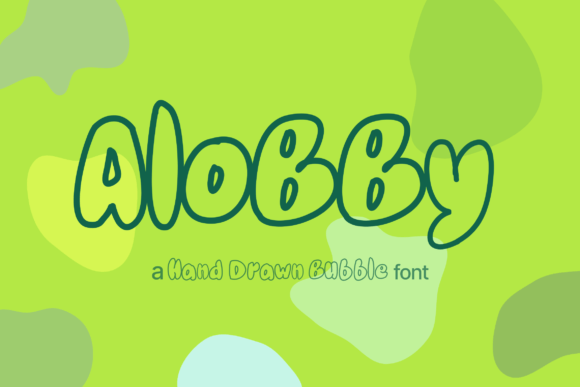
The Ultimate Guide to Alobby Font: Adding Energy and Charm to Your Creative Projects
I’ll never forget the time I was working on a project for a children’s party invitation. I had the design concept nailed, but something was missing – the perfect font. I scrolled through my font library, but nothing seemed quite right. That’s when I stumbled upon Alobby Font, a hand-drawn bubble font that instantly added a playful touch to my design. In this article, I’ll share my experience with Alobby Font, its features, and how to make the most of it in your creative projects.
An Honest Review of Alobby Font
So, what makes Alobby Font special? Here are some things I love about it:
- ✨ Unique and playful design: Alobby Font has a distinctive, hand-drawn look that’s perfect for creative projects that need a personal touch.
- ✅ Easy to read: Despite its playful nature, Alobby Font is surprisingly easy to read, even in smaller sizes.
- 💬 Great for headlines and titles: Alobby Font is ideal for grabbing attention and adding emphasis to your headlines and titles.
Of course, no font is perfect, and Alobby Font has a few quirks:
- 🤔 Limited use in formal contexts: Alobby Font is best suited for creative, informal projects. It may not be the best choice for formal documents or professional designs.
- ⚠️ Some glyphs may require manual adjustment: Depending on the platform you’re using, you may need to manually adjust some glyphs to get the best results.
The Story Behind Alobby Font
Alobby Font was designed with one goal in mind: to create a font that’s full of energy and charm. The designer, inspired by the playful world of children’s illustrations, set out to craft a font that’s both fun and functional. The result is a font that’s perfect for creative projects that need a personal touch.
| Font Name | Alobby Font |
| Author | beadylab |
| What is Alobby Font best used for? | Alobby Font is best used for creative, informal projects such as party invitations, social media graphics, and children’s illustrations. |
| Is Alobby Font easy to read? | Yes, Alobby Font is surprisingly easy to read, even in smaller sizes. |